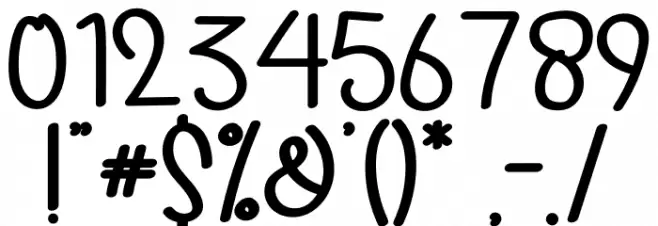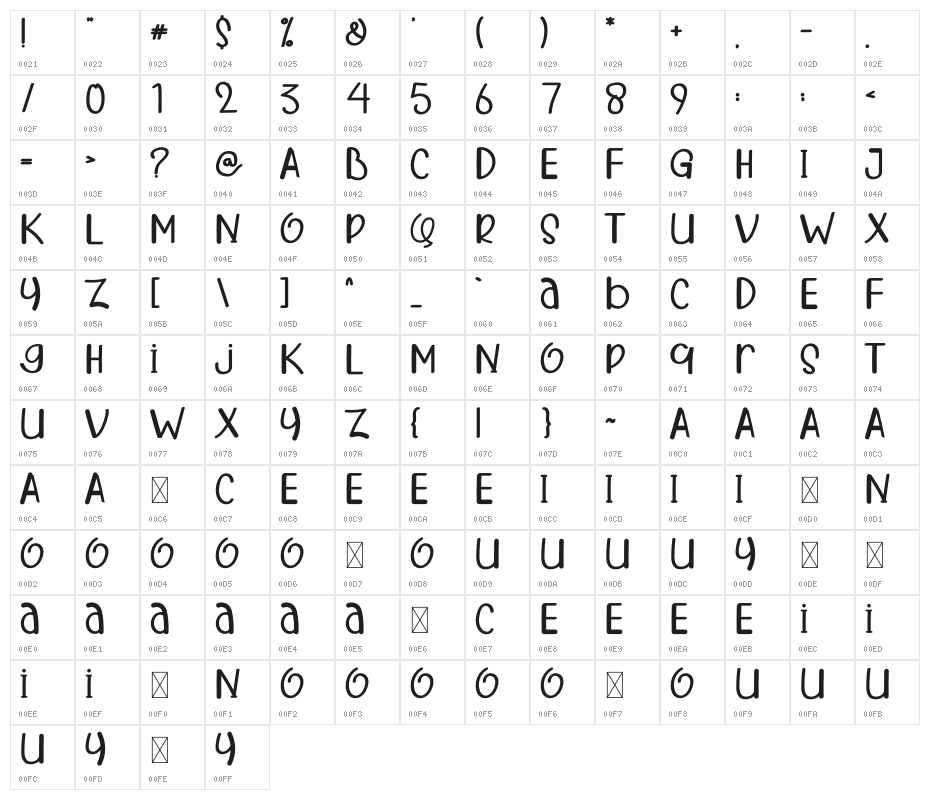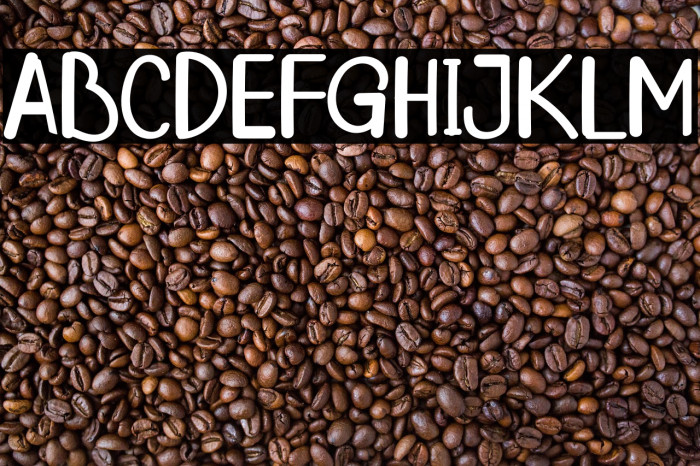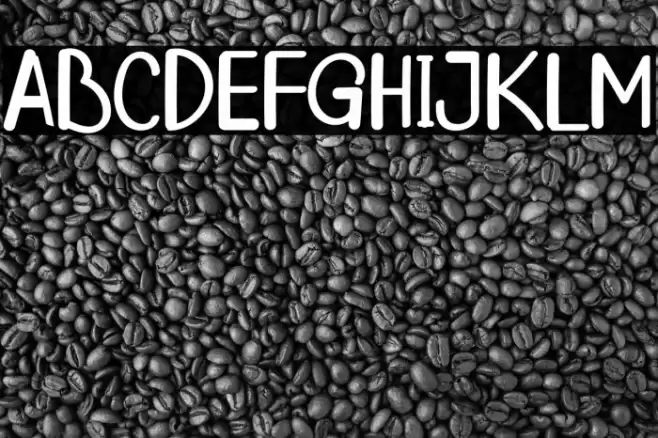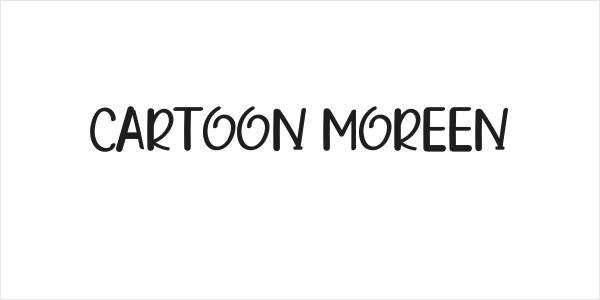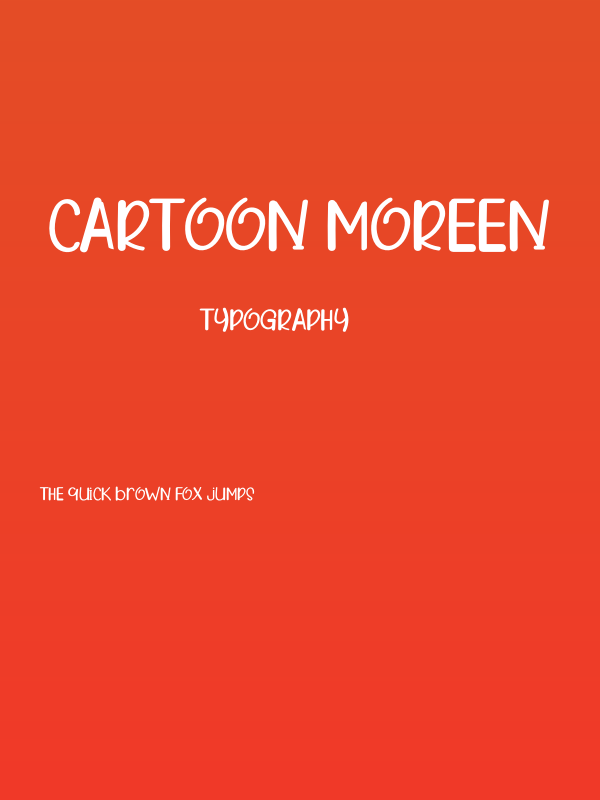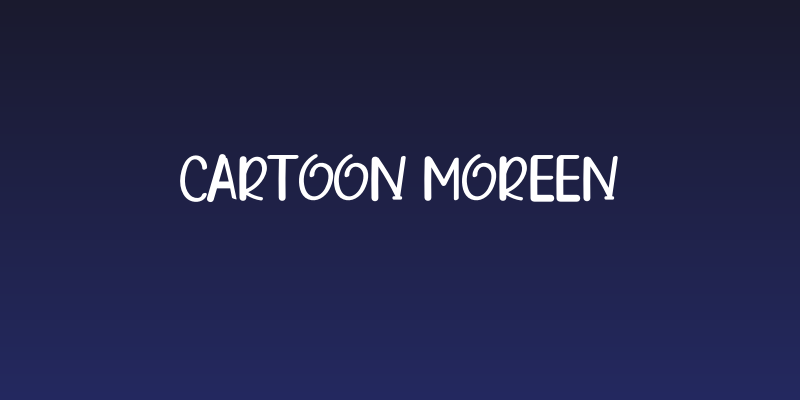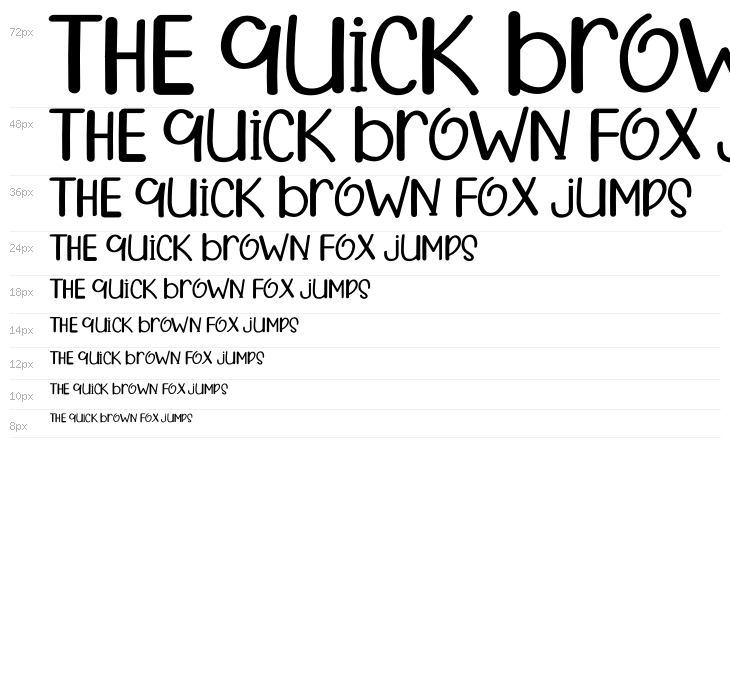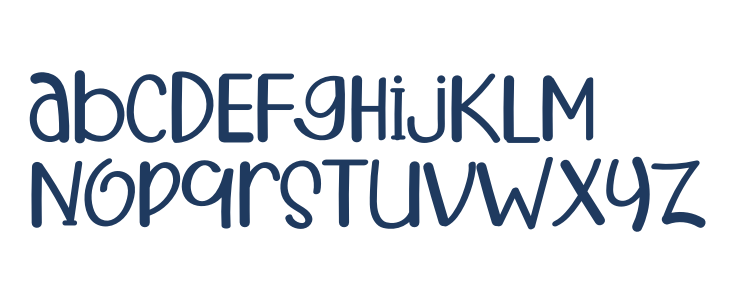
CARTOON MOREEN Font
CARTOON MOREEN Description
This playful and whimsical font features bold, rounded characters with a hand-drawn aesthetic. The uppercase letters are slightly taller and more pronounced, while the lowercase letters maintain a consistent, friendly appearance. The numbers are curvy and maintain the same playful style, making them easily readable. Special characters are creatively designed, adding to the font's overall charm. This font is ideal for projects that require a fun and approachable look, such as children's books, cartoons, or playful branding.
Overall StylePlayful
Use CaseHeadlines, Logos, Informal Text
Proposed ProjectsIdeal for children's books, cartoon titles, playful branding, and casual invitations.